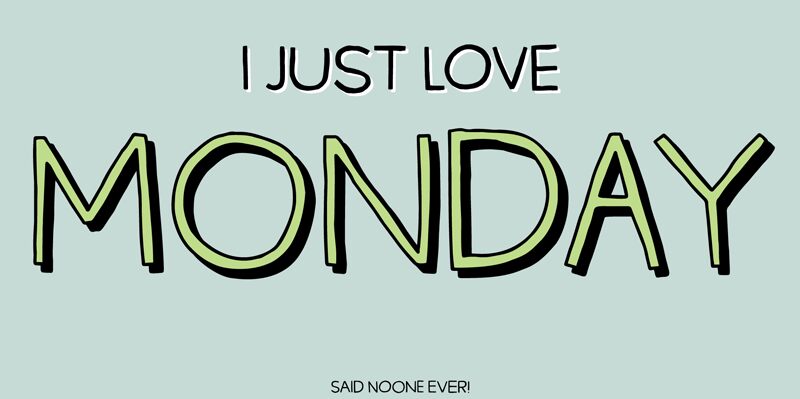
Overskrift DEMO Regular
Overskrift, a captivating display font by Pizzadude, adds a playful touch to any project.
With its semi-light weight and 3D cartoon style, this font is perfect for children's book covers, animated movie titles, and whimsical website headers. Its bold yet approachable design captures attention and brings words to life in a fun and imaginative way. Whether you're creating party invitations or designing a colorful logo for a toy store, Overskrift will effortlessly infuse your projects with joy and creativity.